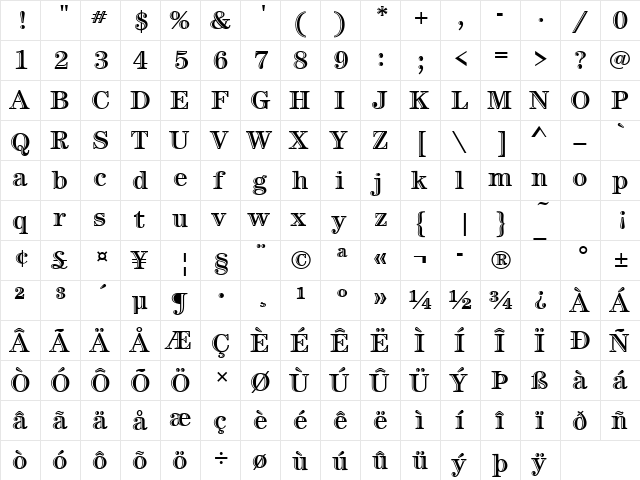
CenturyHanItcD Regular
Design Context for CenturyHanItcD Typeface
CenturyHanItcD is a composed and adaptable typeface that performs quietly and consistently across a wide range of design contexts.